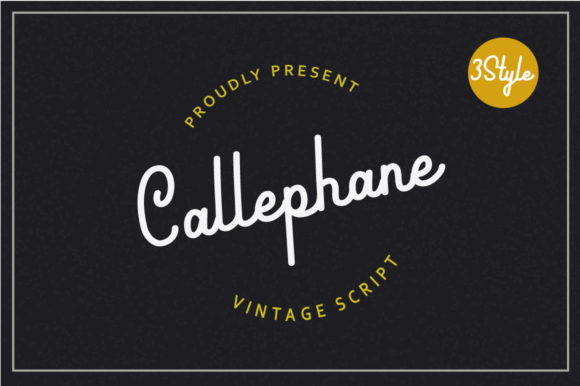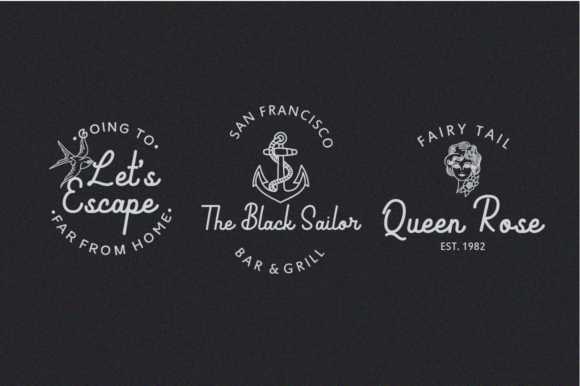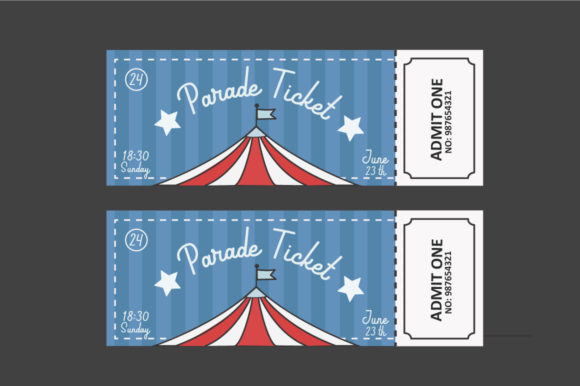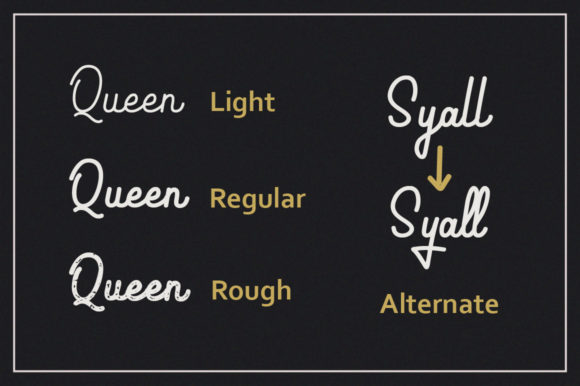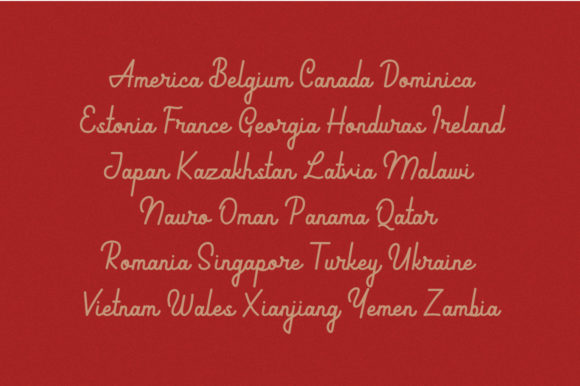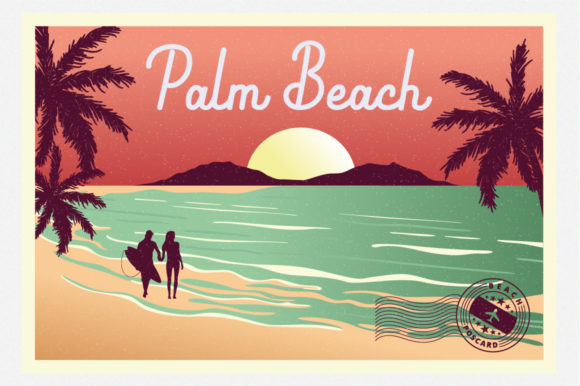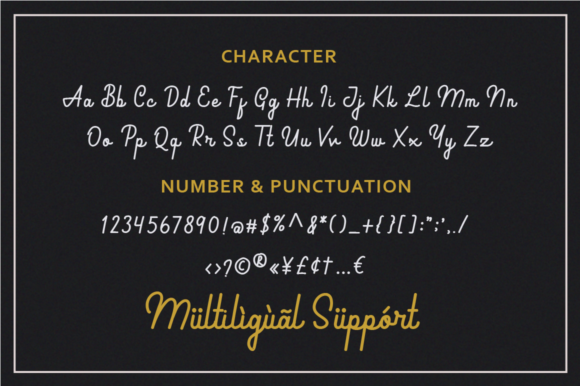
Callephane Font
About Callephane Font
Callephane is a fun and playful retro script that looks & feels gorgeous. Use it to take any design idea to the next level.